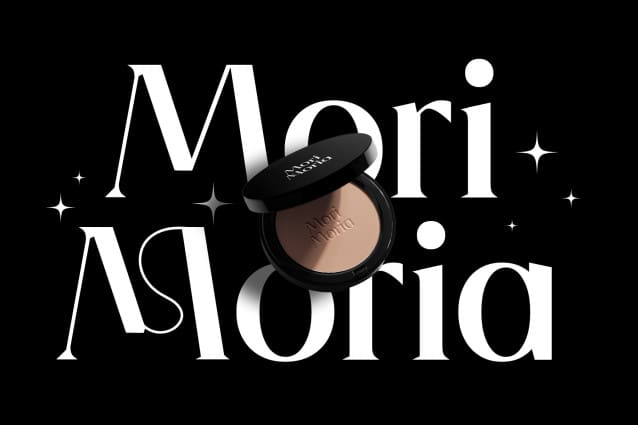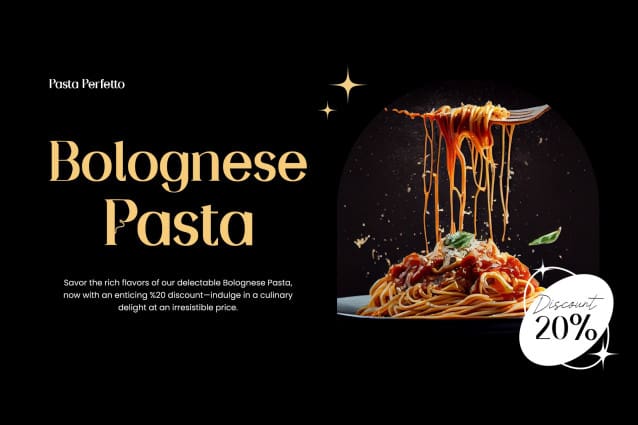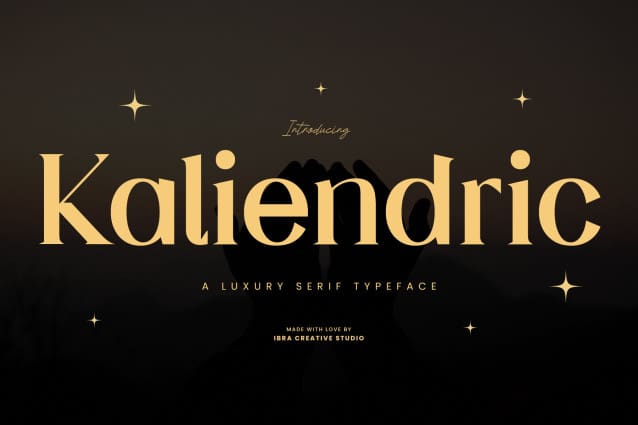
Kaliendric Font
Kaliendric Font, a luxury serif typeface, epitomizes elegance and sophistication in the realm of typography. Its meticulously crafted serifs and refined letterforms seamlessly blend tradition with a contemporary aesthetic, creating a visual harmony that captivates the discerning eye. The typeface exudes a sense of opulence and prestige, with each character embodying a delicate balance between timeless design and modern sensibility. Kaliendric’s graceful strokes and subtle details contribute to its distinctive character, making it a perfect choice for prestigious branding, editorial design, and other high-end applications where a touch of refined luxury is essential.